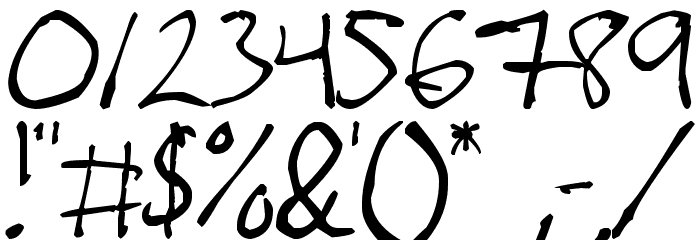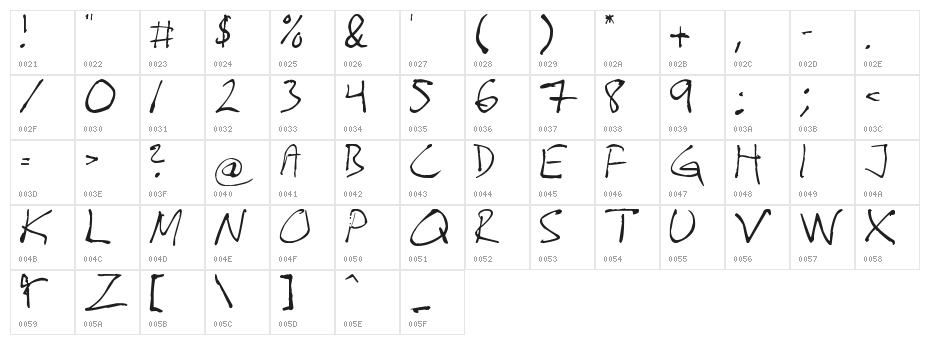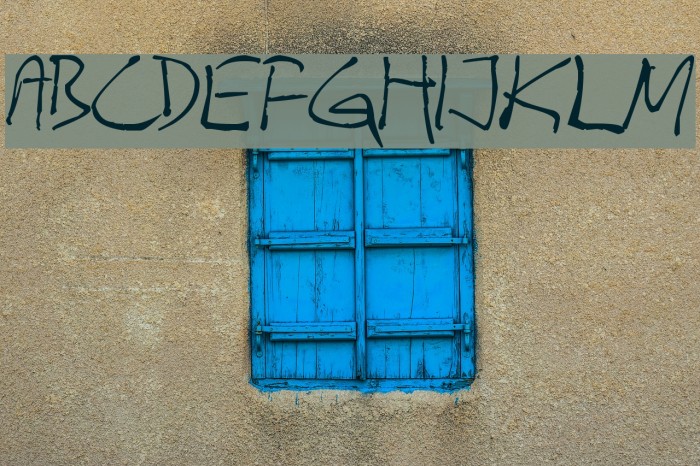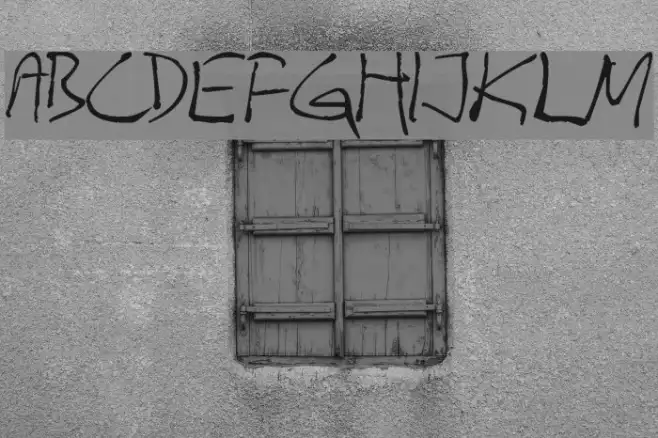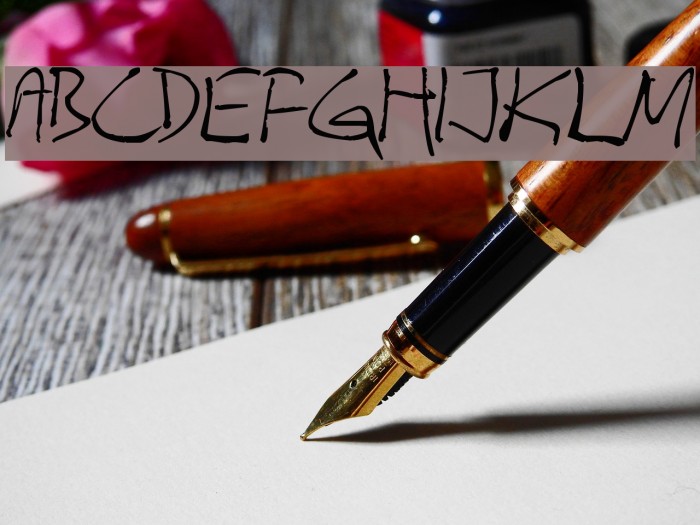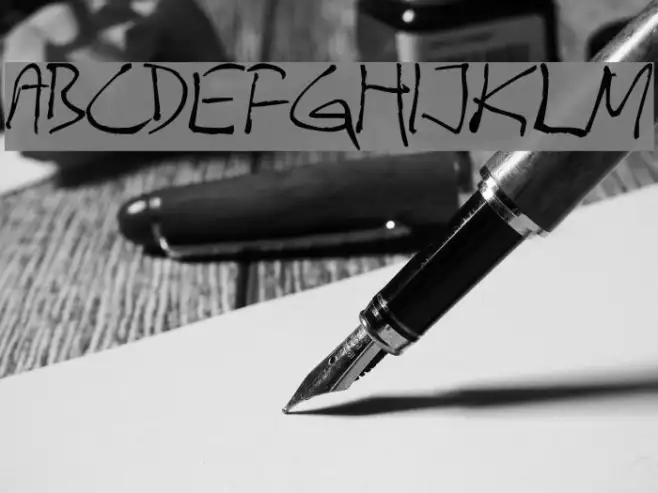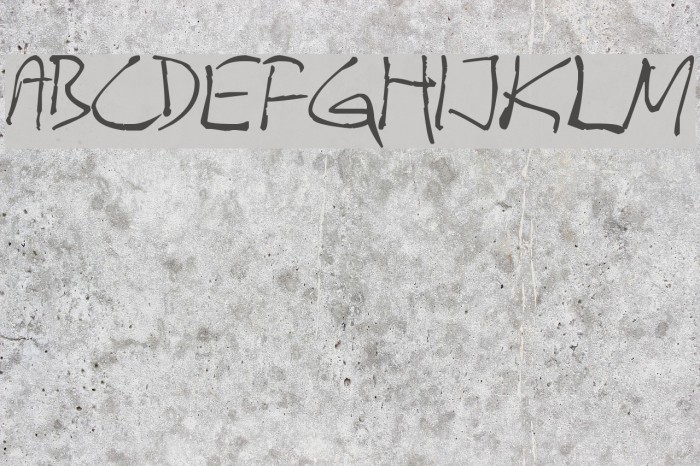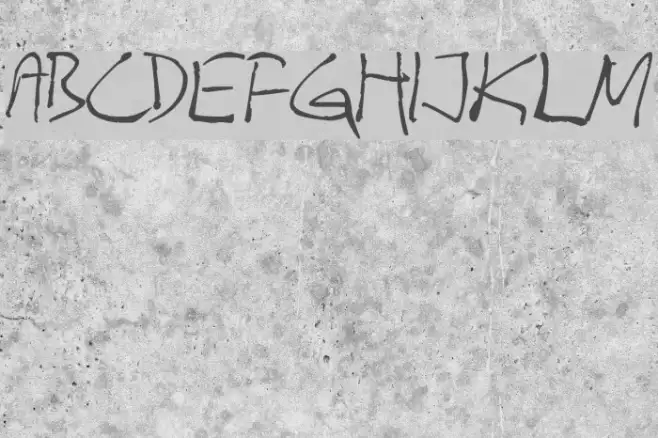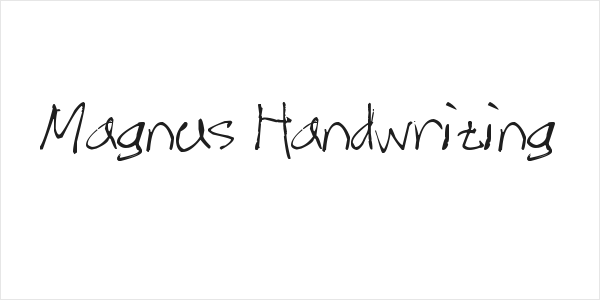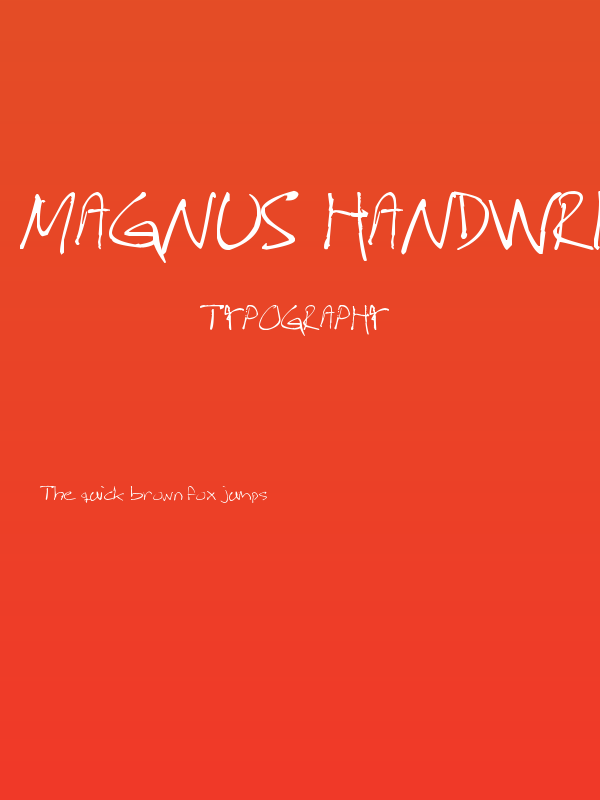
Magnus Handwriting Font
Magnus Handwriting Description
This font embodies a dynamic and expressive handwritten style, characterized by its fluid and irregular strokes. The letters have a natural, organic flow, with varying thickness that mimics the pressure of a pen on paper. The uppercase and lowercase letters maintain a consistent style, with some playful variations that add to its charm. Numbers and special characters are crafted with the same attention to detail, ensuring a cohesive look throughout. This font captures the essence of personal handwriting, making it ideal for projects that require a personal touch.